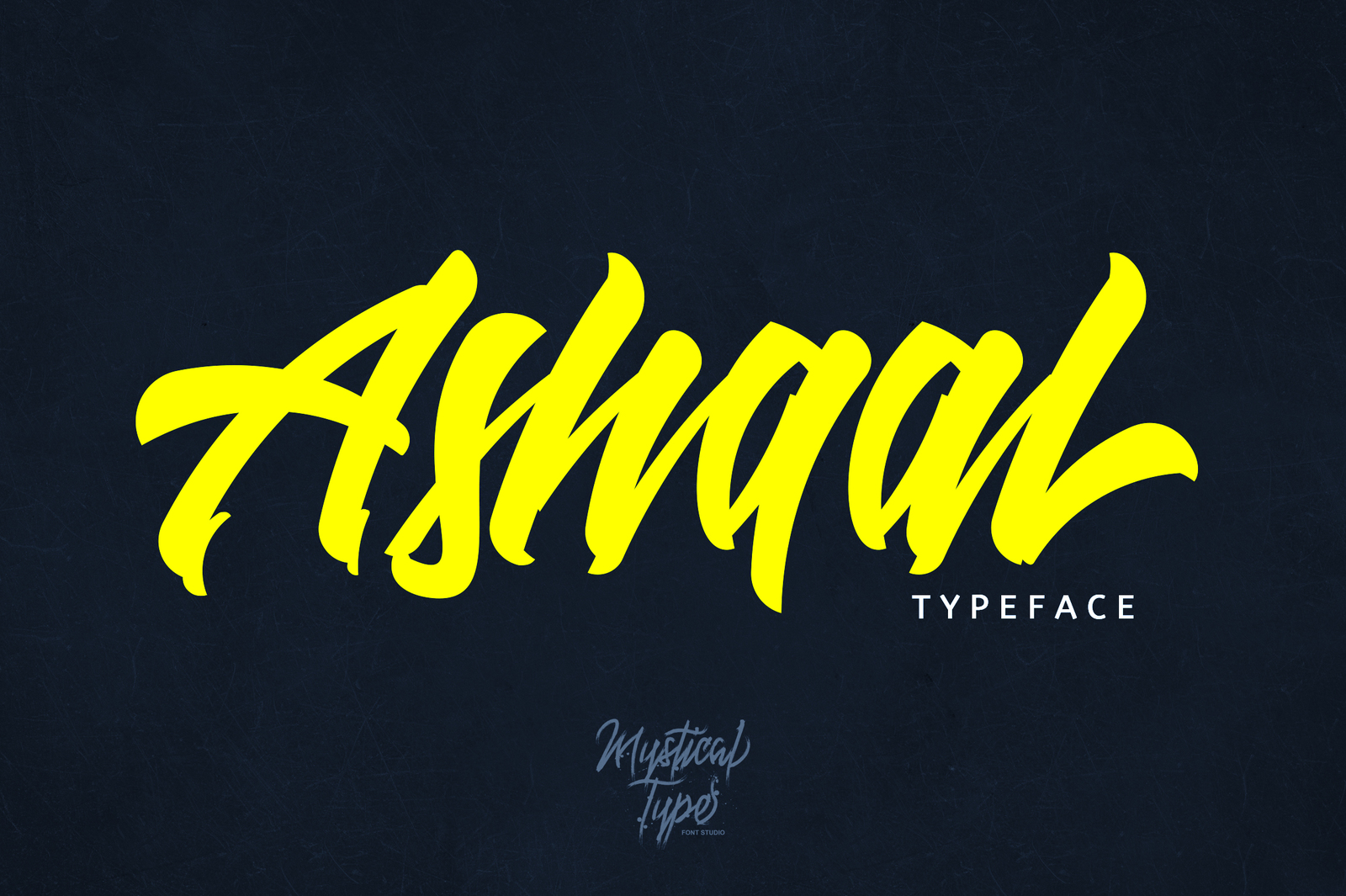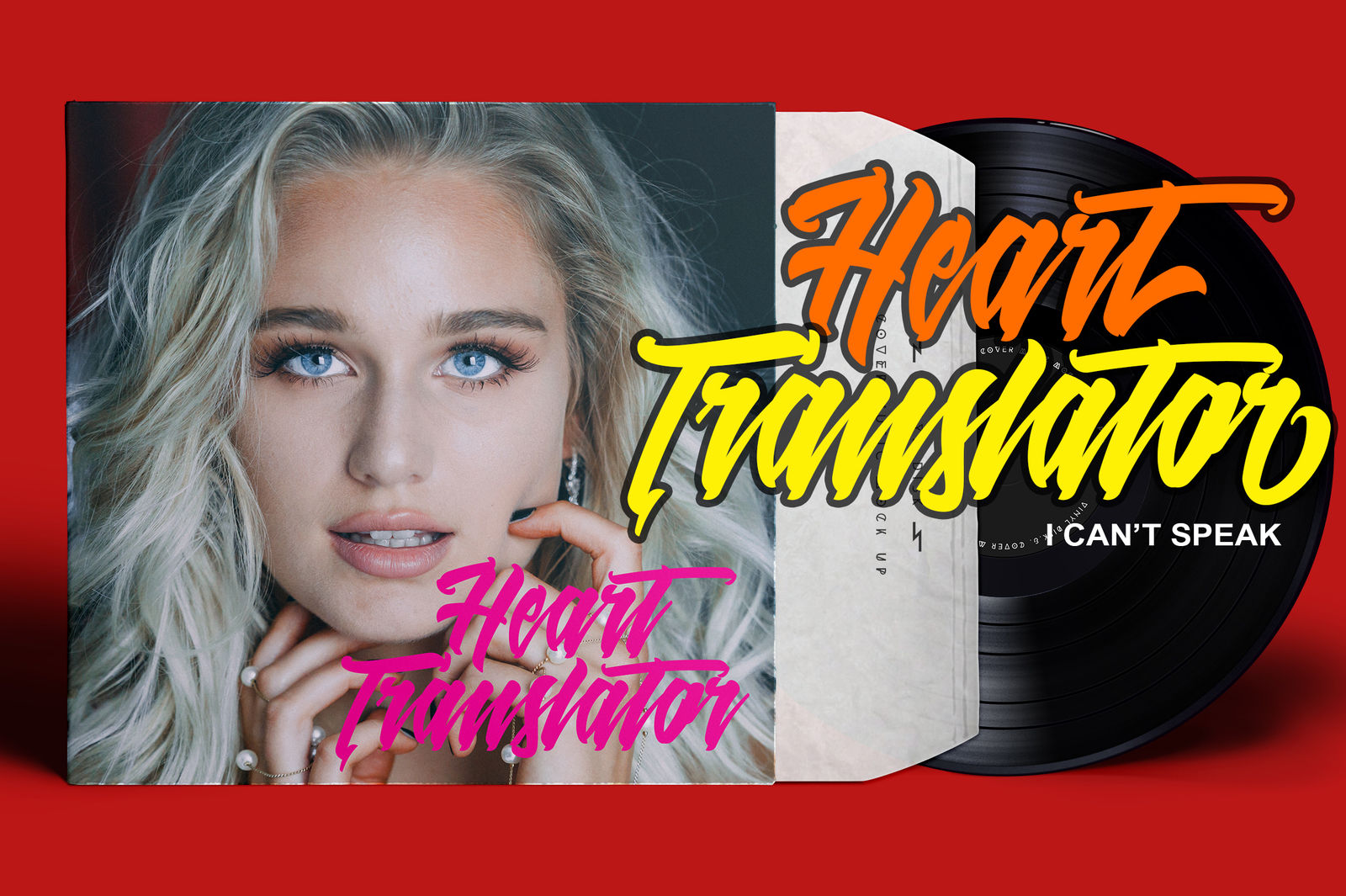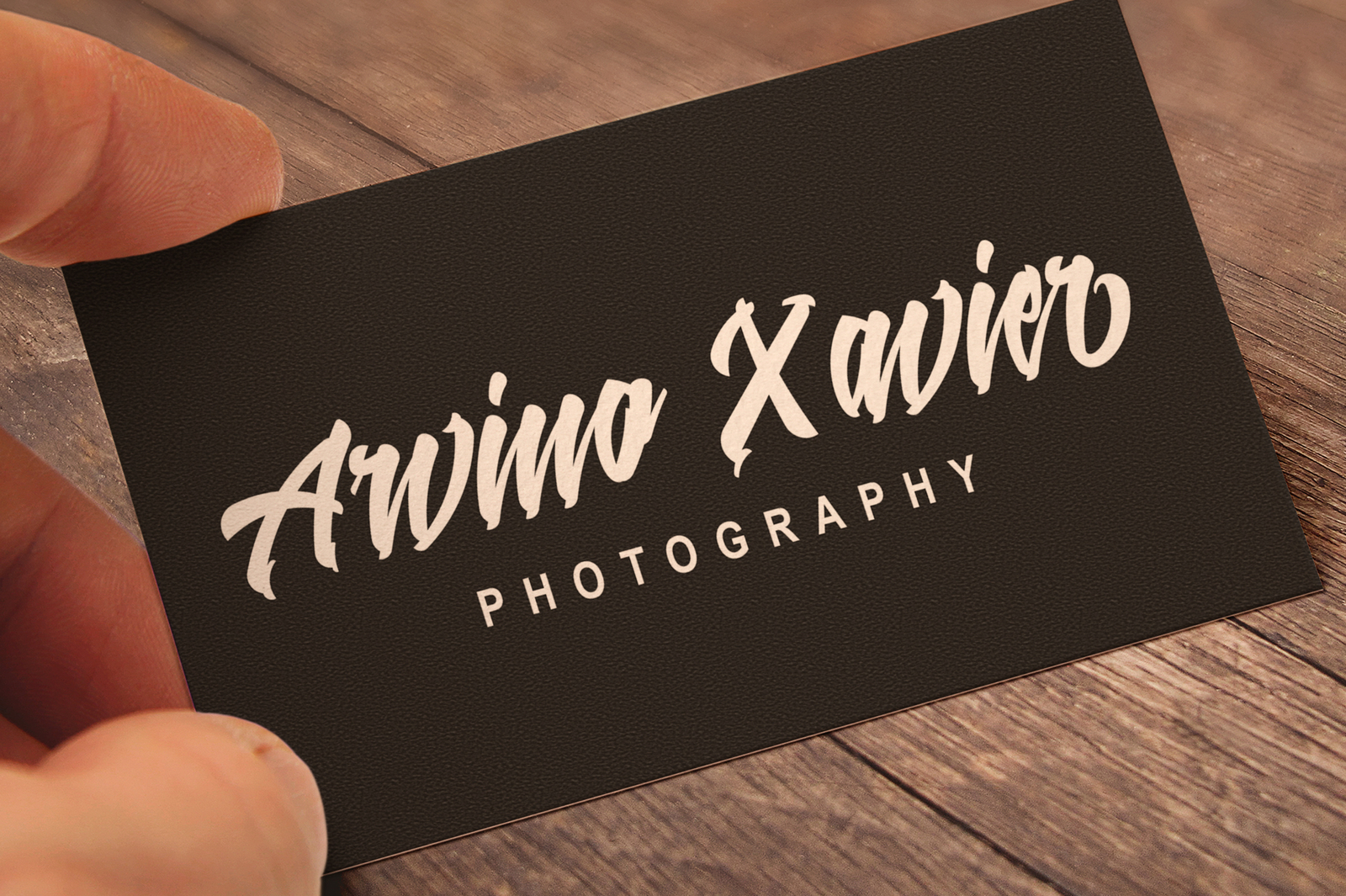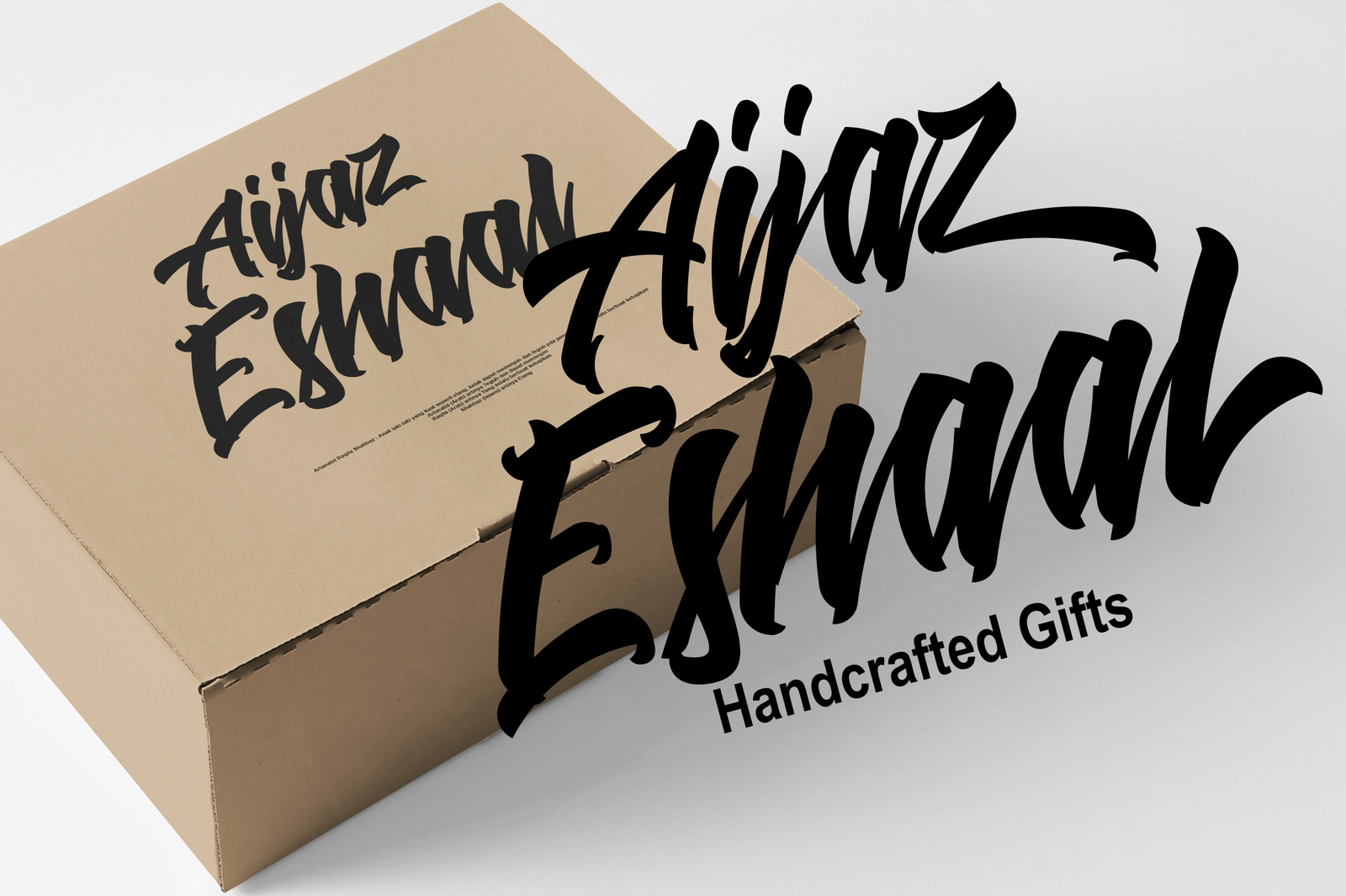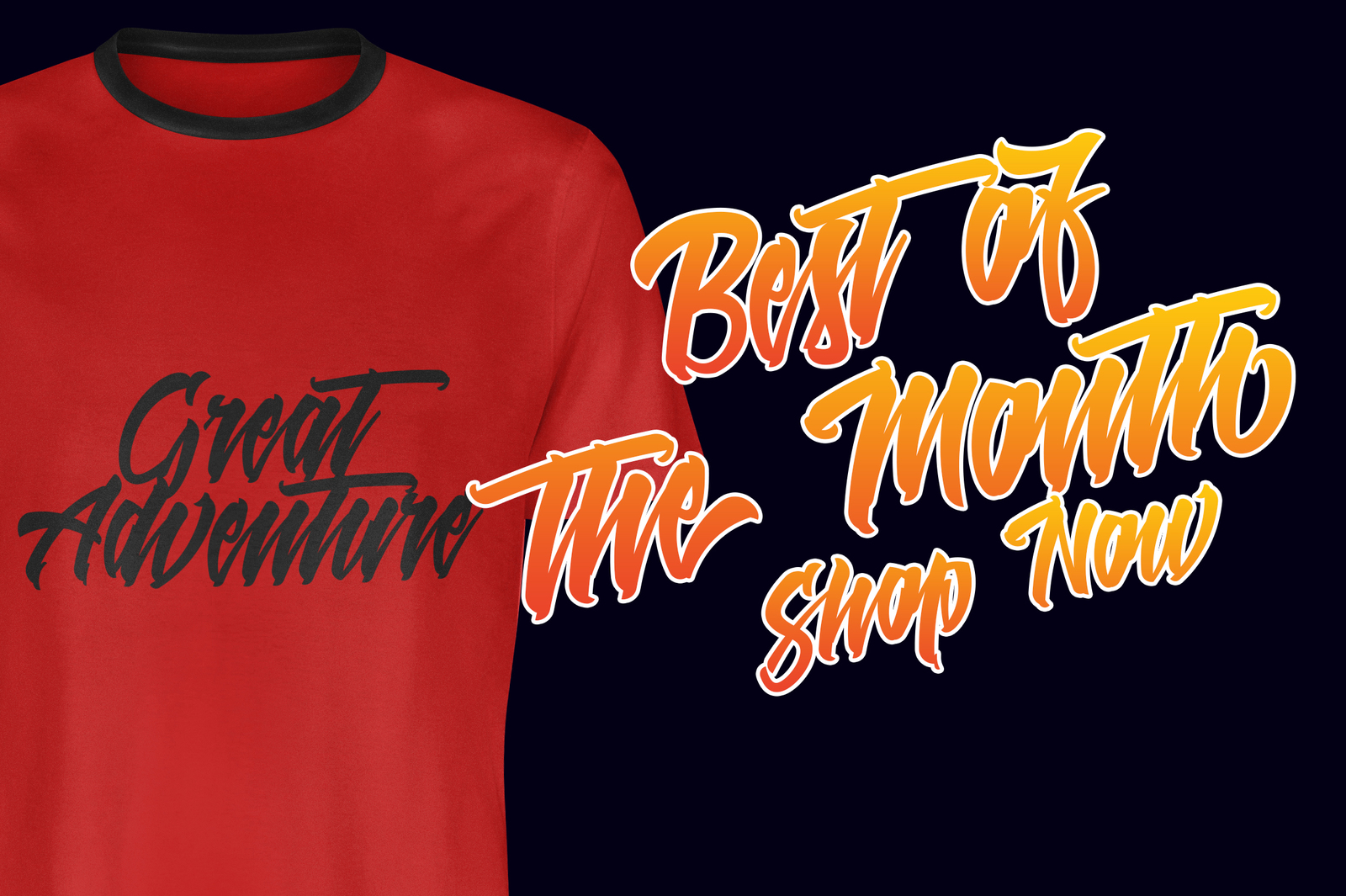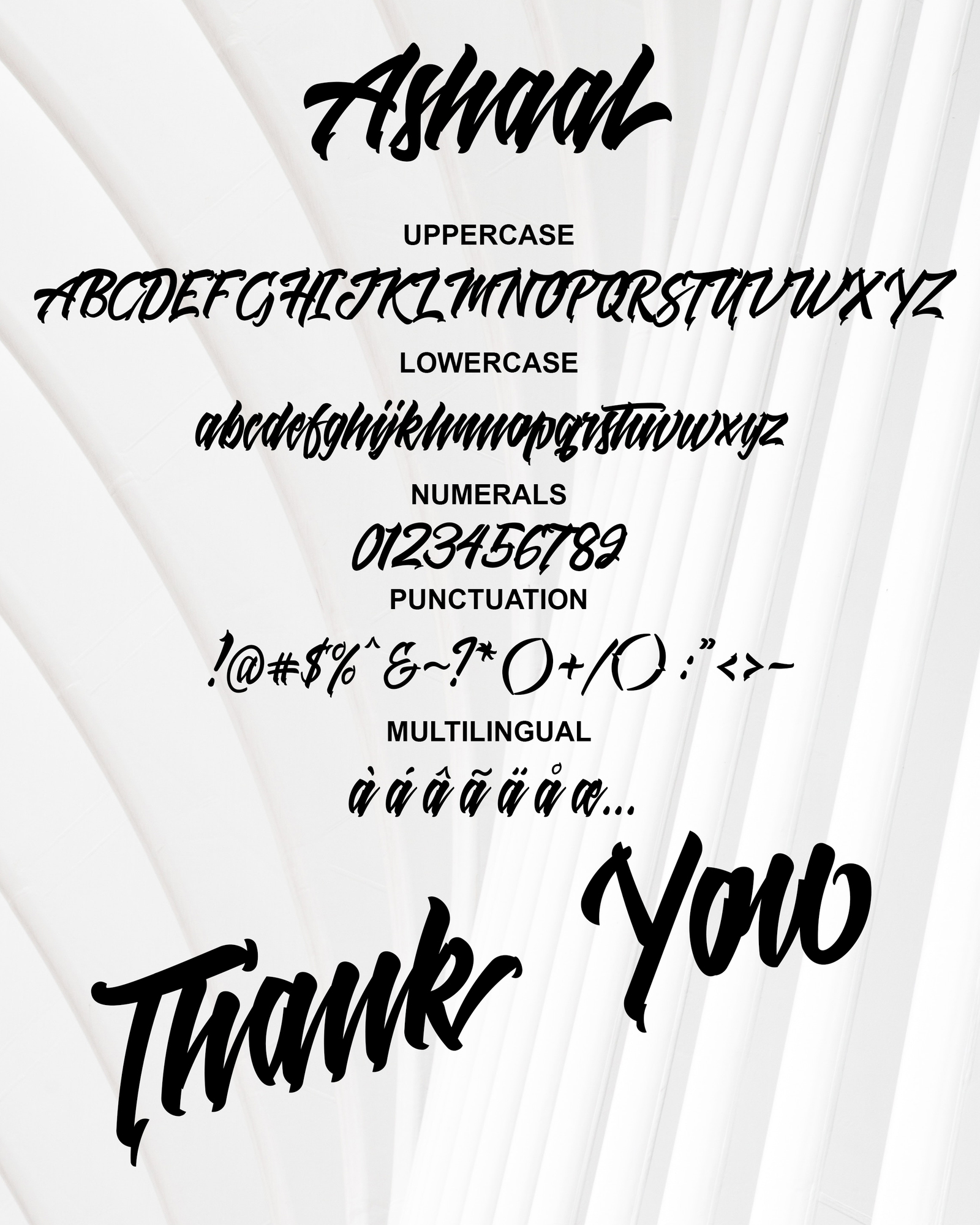
Ashaal Typeface
Updating a classic script with a contemporary feel, Ashaal is a wonderful and stunning handwritten font. It will turn any design idea into a standout.
This is the perfect choice for stylish branding, logo projects, product packaging, handwriting quotes & editorial design.